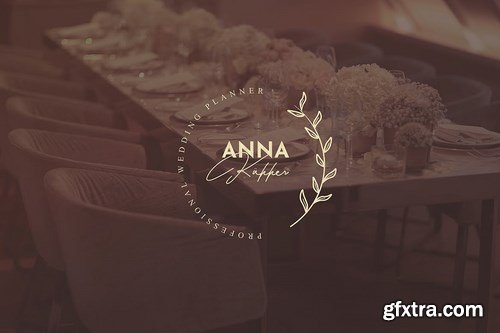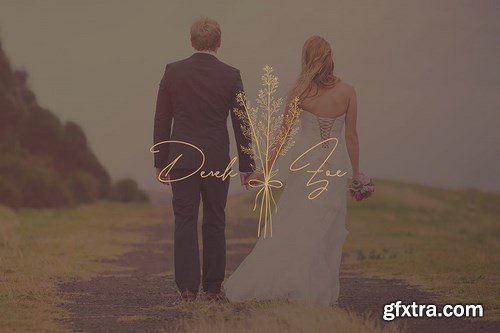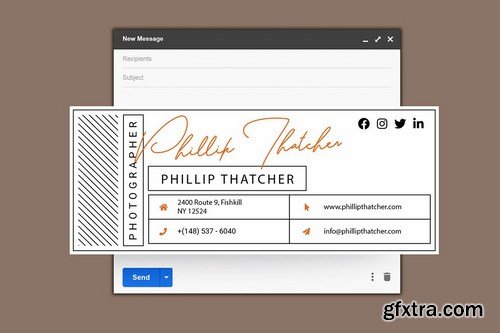
Jack Walker is a handwritten font with a unique and classy look & feel. Ready to use and perfect for your business presentations, wedding designs and classy logotypes.